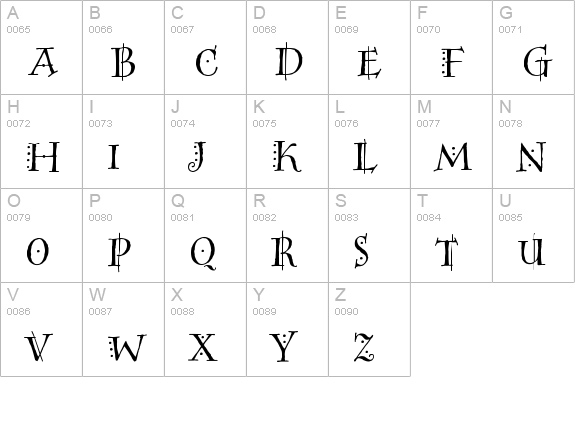
HogwartsWizardOrnCaps Bold is a strong, high-contrast variant in the HogwartsWizardOrnCaps typeface family \xE2\x80\x94 well suited to headlines, attention-grabbing titles, and strong calls-to-action.
Experience the magical world of Hogwarts with HogwartsWizardOrnCaps Bold font. This enchanting typeface captures the essence of wizardry and brings a touch of whimsy to your design projects. With its intricate ornamental details and bold styling, HogwartsWizardOrnCaps Bold is perfect for adding a spellbinding flair to invitations, posters, and more. Best of all, this captivating font is **freely** available to download at FontsMarket.com. Unleash your creativity and let the magic flow with HogwartsWizardOrnCaps Bold!